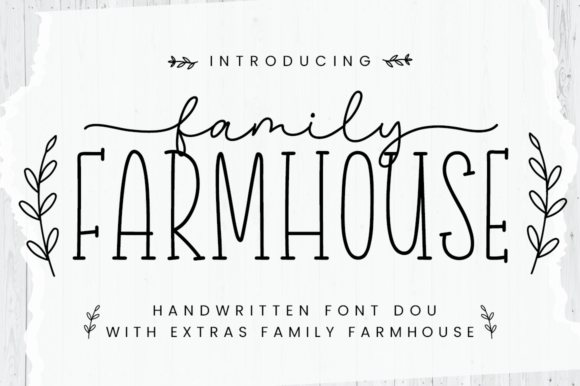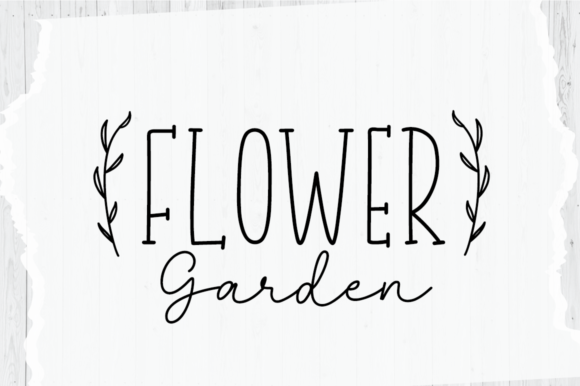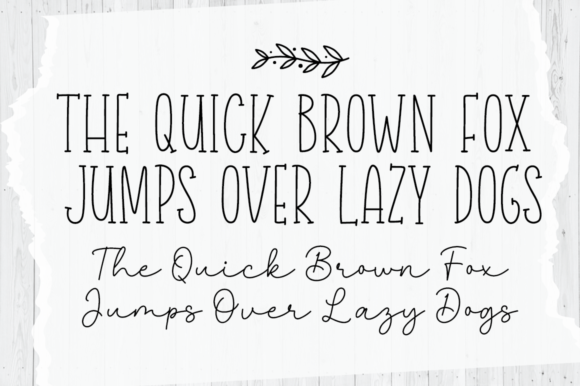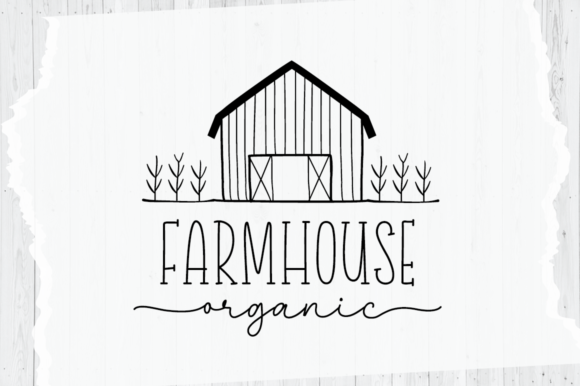
Family Farmhouse Font
About the Family Farmhouse Font
Explore the possibilities with Family Farmhouse Font, a font that offers both beauty and functionality. Family Farmhouse consists of two fonts designed to complement each other perfectly. Together or separately, these fonts are ideal for adding a chic and cheerful touch to your craft. Family Farmhouse is PUA coded which means you can access all the glyphs and sweeps easily!
Family Farmhouse excels in display applications such as logos, headlines, short quotes, and packaging design where its cheerful personality shines. Its charm works well for branding projects targeting a younger demographic or businesses focused on food, crafts, or family-oriented products. Avoid using it for lengthy body text or UI elements; the decorative nature might compromise readability.
Pairing Family Farmhouse with a clean sans-serif like Open Sans for body copy creates a balanced and harmonious design. For a more playful feel, consider pairing it with a script font like Pacifico, but use it sparingly to avoid visual clutter. A geometric sans-serif, such as Montserrat, could add a touch of modern sophistication, contrasting nicely with the font’s handcrafted feel.
The overall personality of Family Farmhouse is friendly and approachable, conveying a sense of warmth and approachability, making it suitable for brands that wish to project a welcoming and cheerful image.
Family Farmhouse Font Usage Examples
Family Farmhouse Font Example